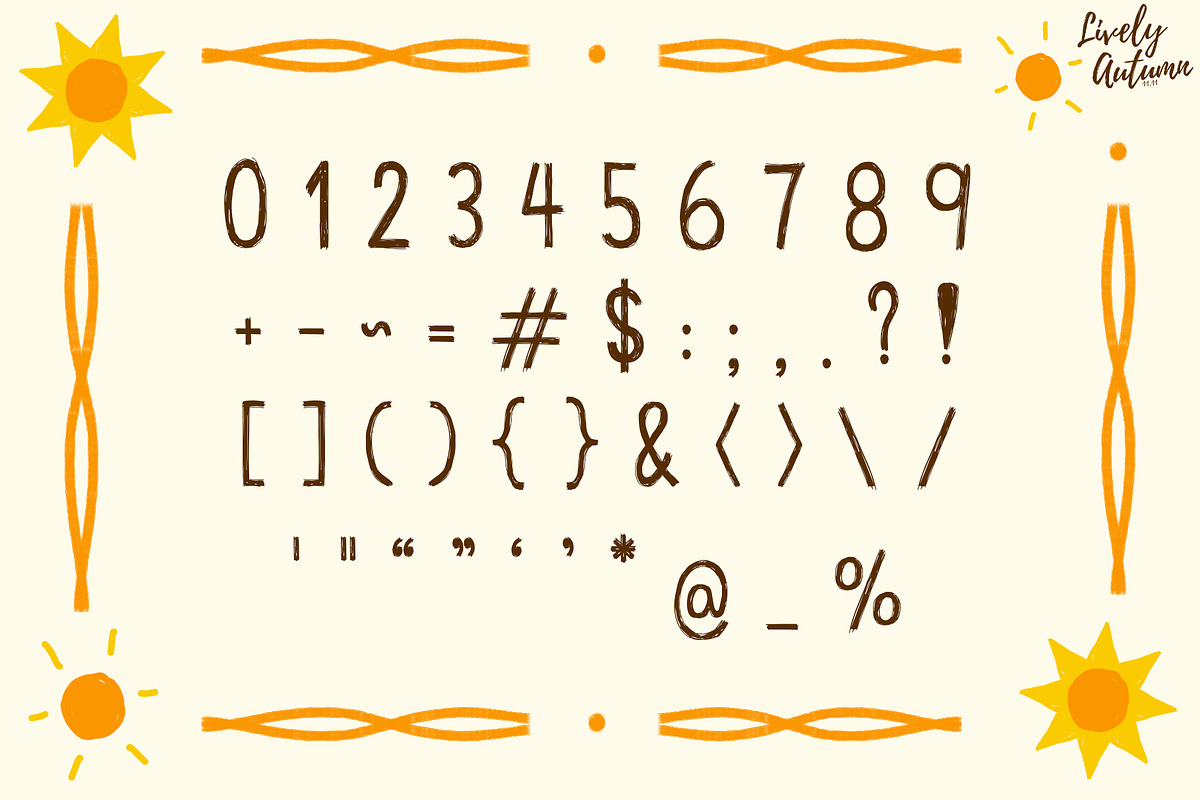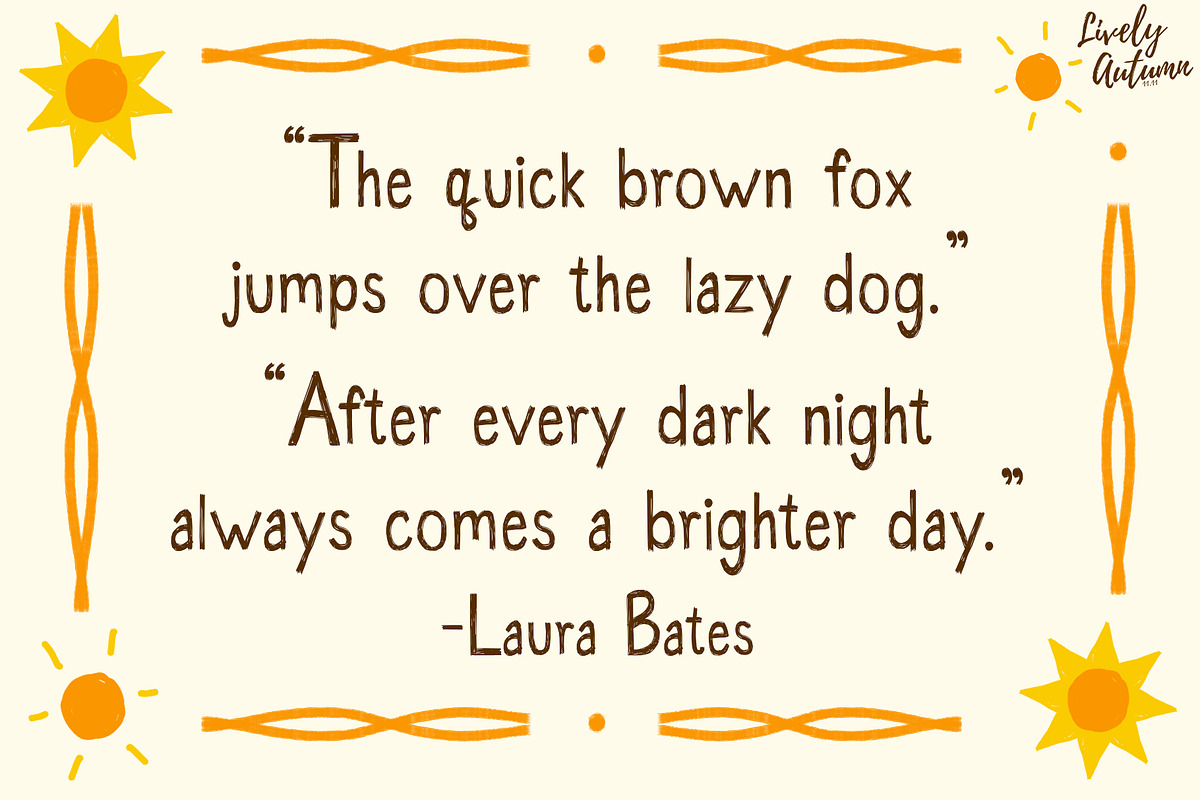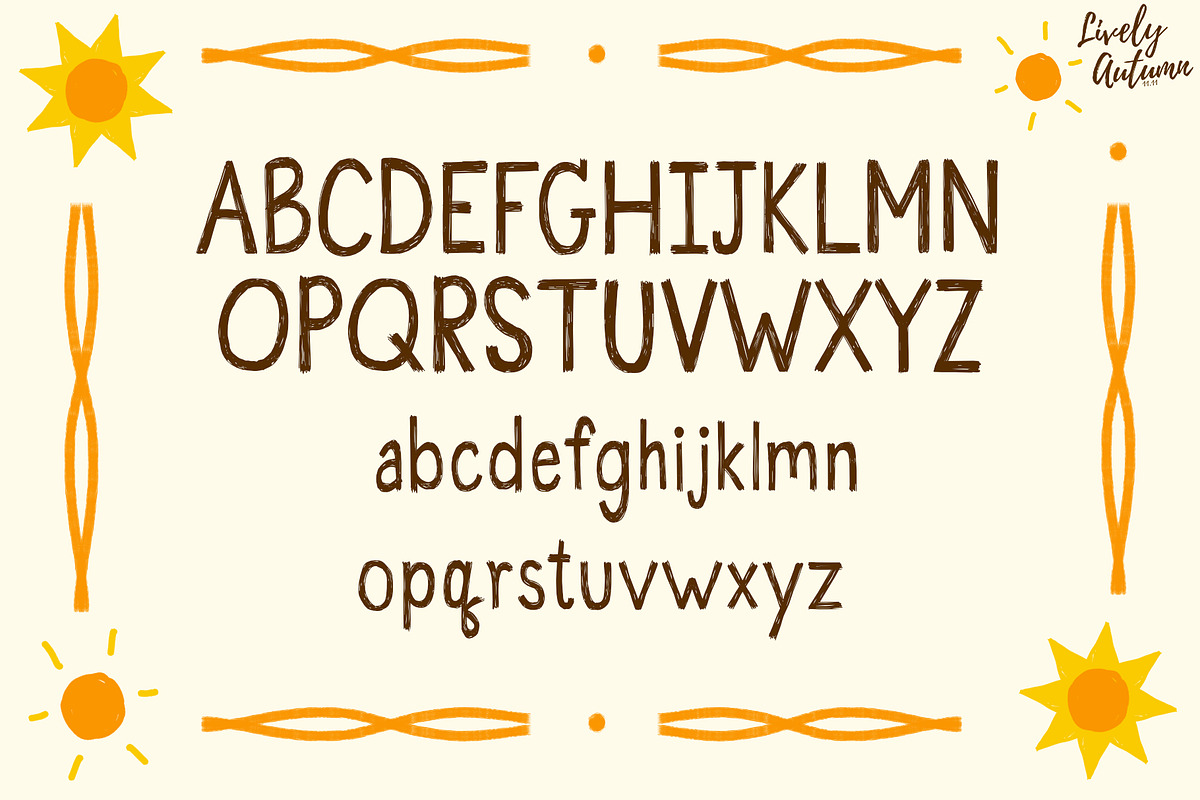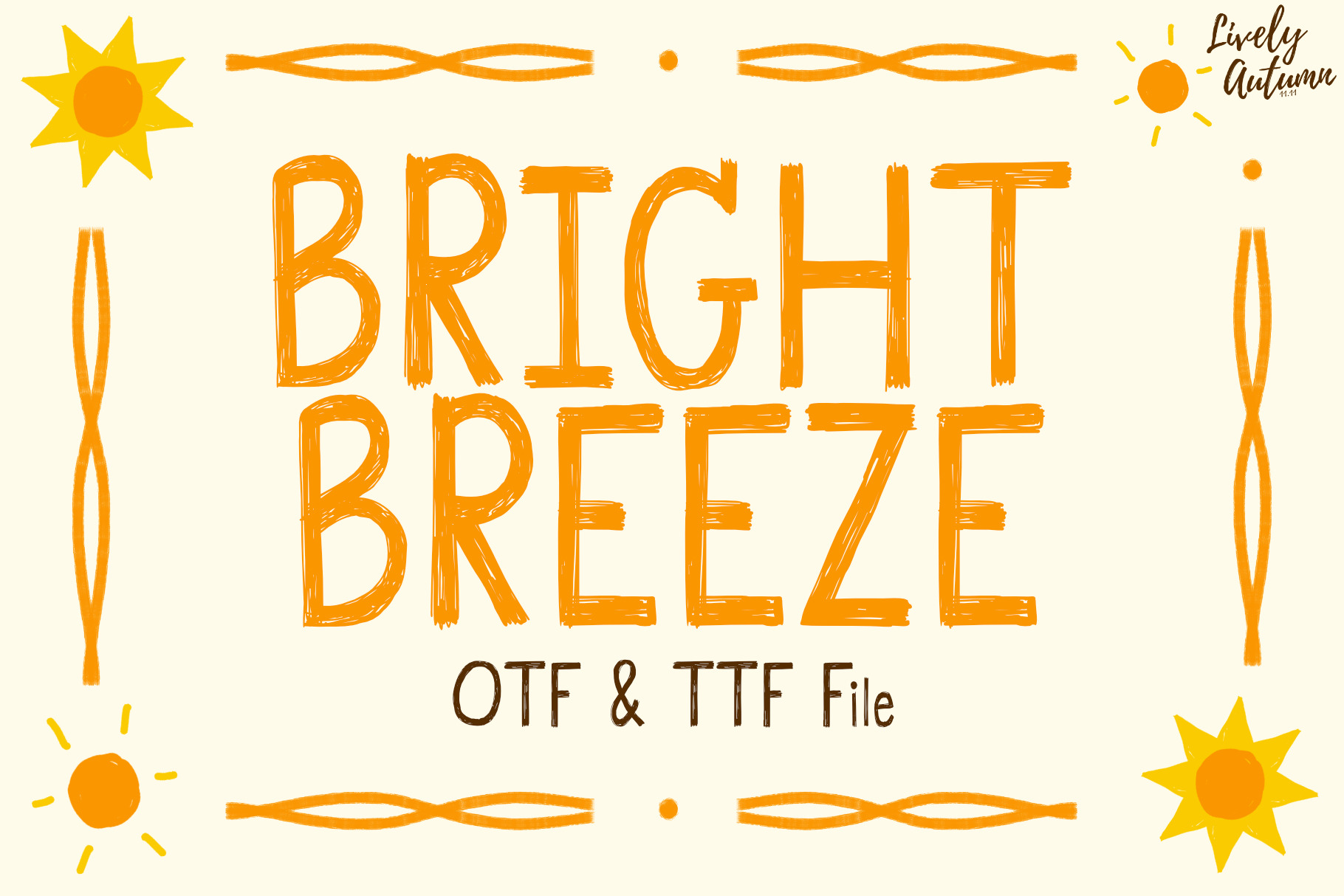
Bright Breeze Font
Bright Breeze Font is a San Serif handwritten font that is written in a rough way. Perfect for your personal projects and various projects. From invitations to posters, social media graphics, journals, and much more.